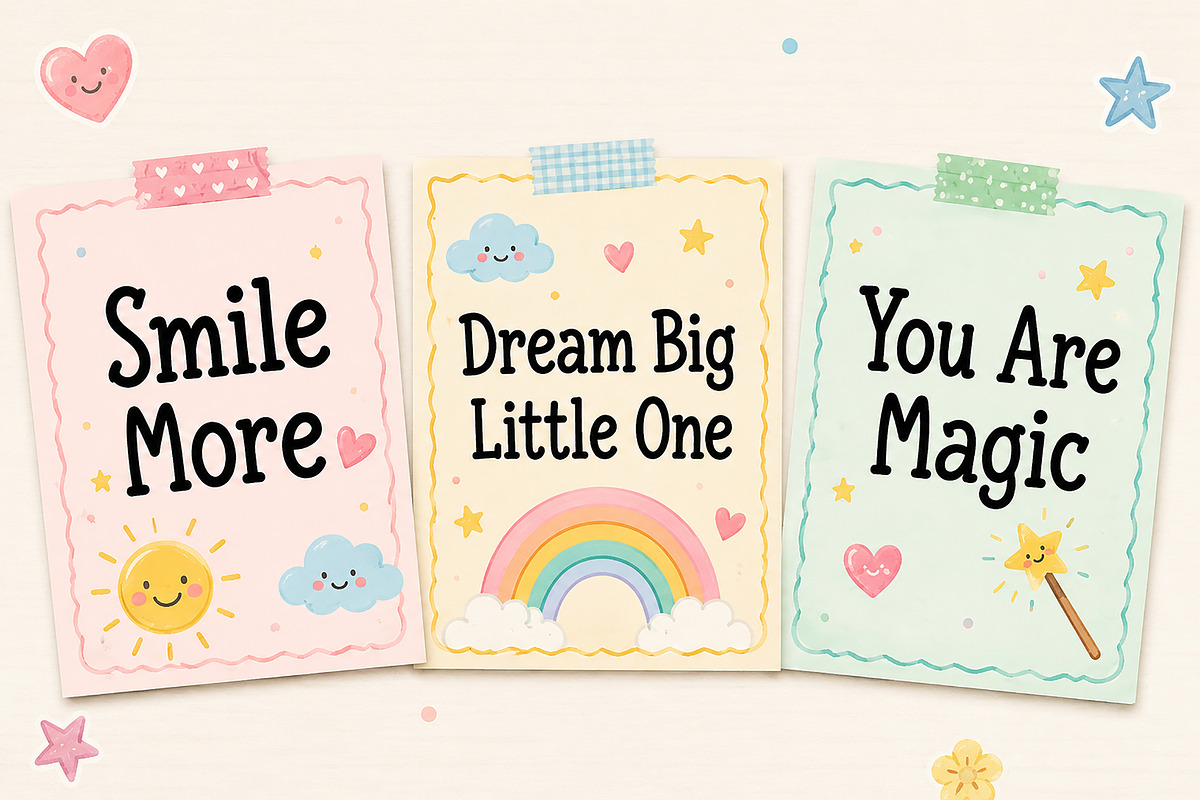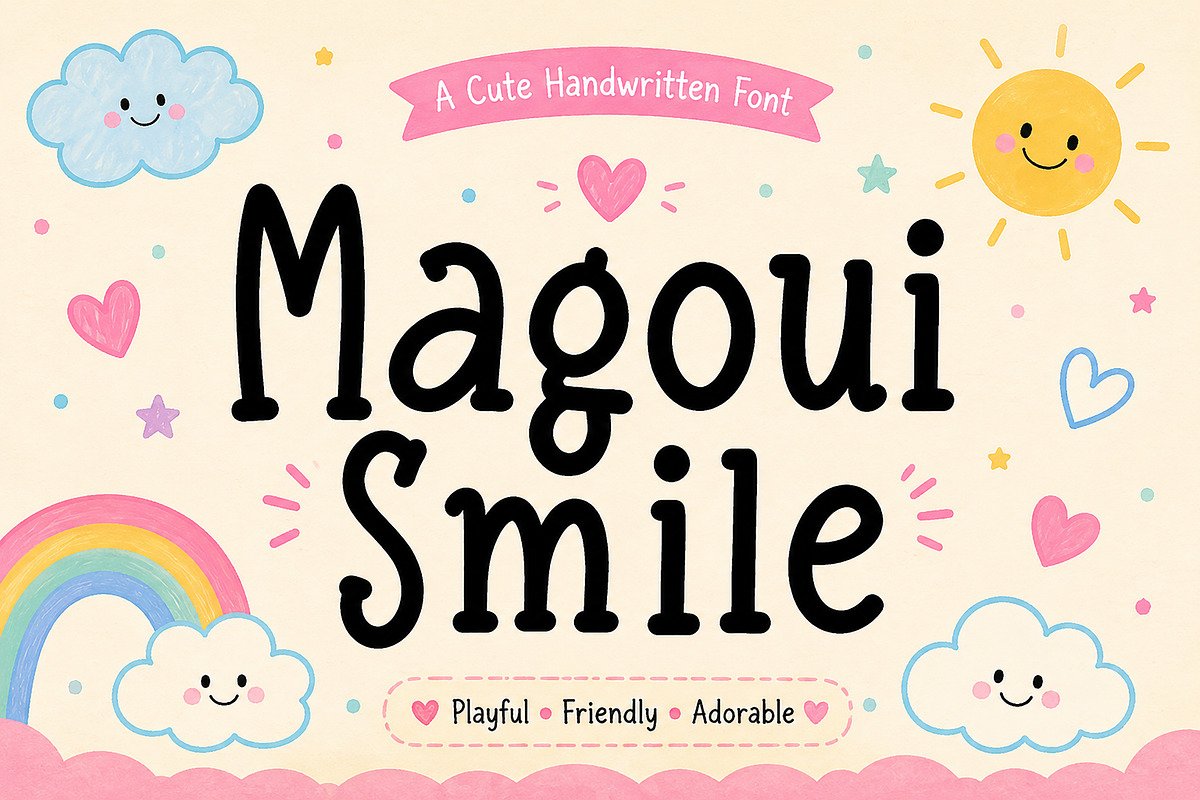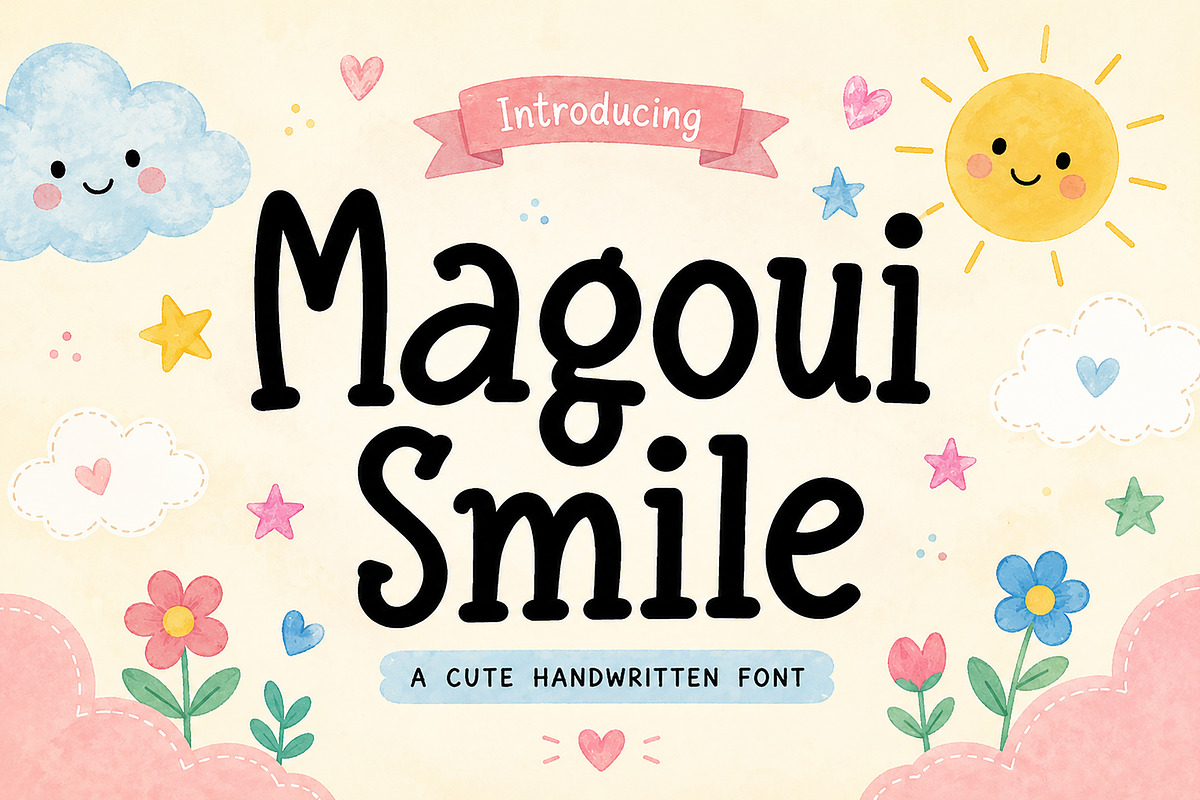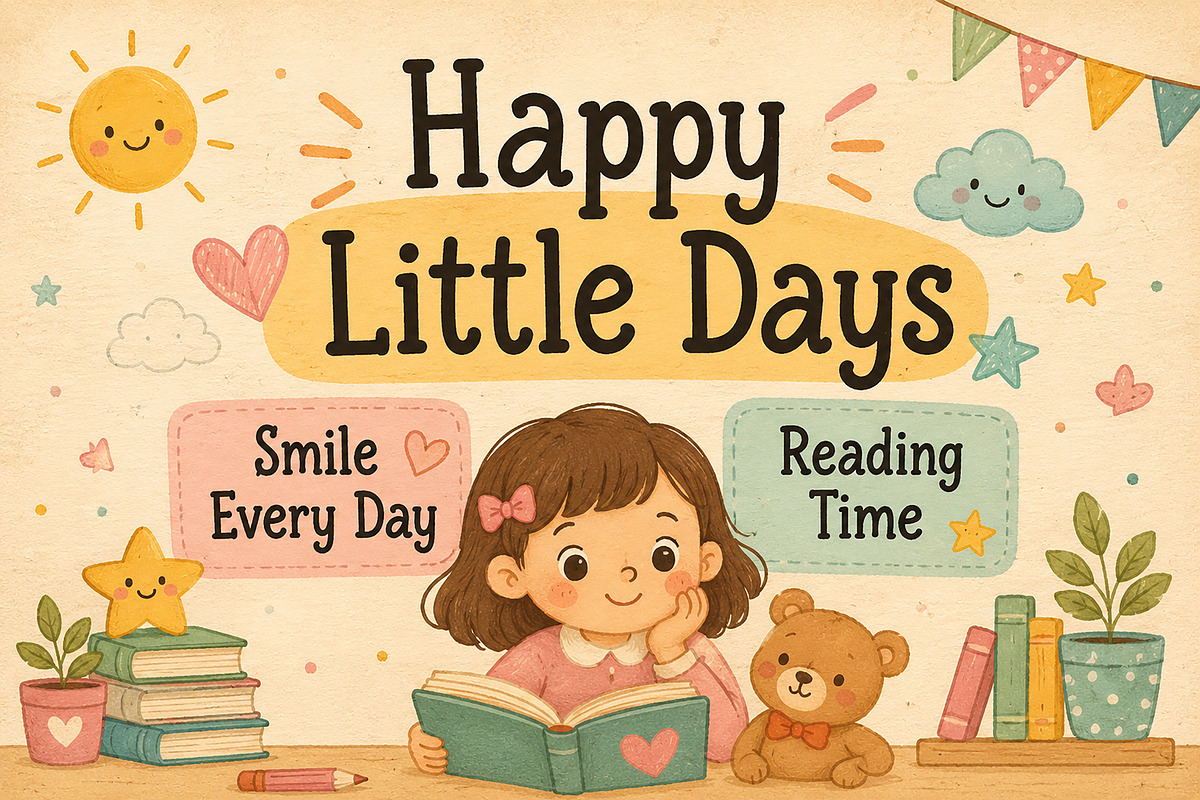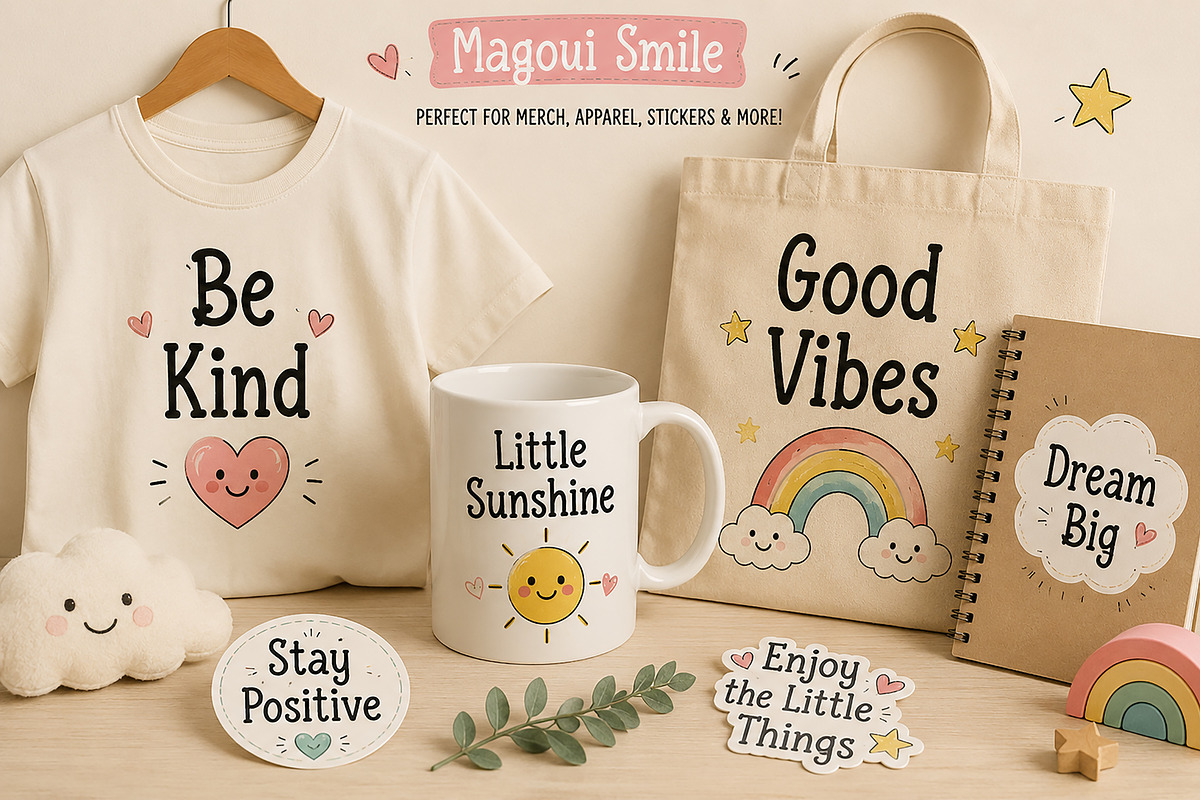
Magoui Smile
Magoui Smile – Cute Handwritten Display Font
Description
Magoui Smile is a charming and playful handwritten display font designed to bring joy, warmth, and creativity to your projects. With its cute hand-drawn letterforms, friendly curves, and whimsical personality, this font is perfect for children's designs, storybooks, classroom resources, Cricut crafts, stickers, greeting cards, nursery decor, social media graphics, and fun branding projects.
Whether you're creating adorable quotes, educational materials, party invitations, kids' apparel, or printable products, Magoui Smile adds a cheerful and heartwarming touch that instantly captures attention.
Its handcrafted style feels authentic, friendly, and approachable, making it an excellent choice for designers, crafters, teachers, and creative entrepreneurs looking for a font full of personality and happiness.
• Children's Books
• Storybook Covers
• Classroom Posters
• Nursery Decor
• Cricut & Silhouette Projects
• Stickers & Labels
• T-Shirts & Apparel
• Greeting Cards
• Social Media Graphics
• Quotes & Printables
• Party Invitations
• Kids Branding
• Packaging Design
• Scrapbooking
• DIY Crafts
• Easy-to-Read Characters
• Handwritten Style
Bring smiles, creativity, and playful charm to every design with Magoui Smile!